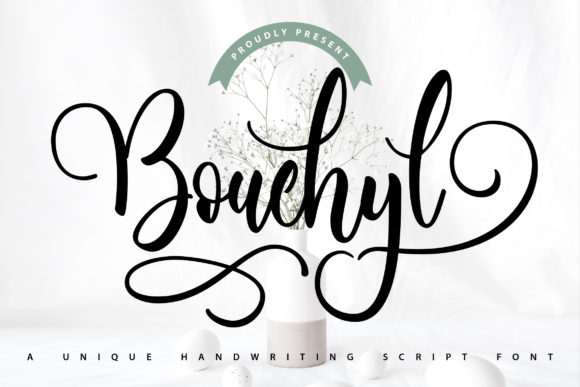
Bouchyl | Unique Handwriting Script Font
Have you ever been in the middle of a design project, and suddenly, you’re stuck on finding the perfect font? I recall a recent experience where I was working on a greeting card design, and my client specifically asked for a calligraphy-style font that exuded elegance and sophistication. After scouring through numerous font libraries, I stumbled upon **Bouchyl | Unique Handwriting Script Font**, and it instantly became the star of the show! ✨
A Beautiful Addition to Your Design Arsenal
Bouchyl is more than just a font – it’s a statement piece. Its calligraphy style makes it perfect for invitations, greeting cards, branding materials, business cards, quotes, posters, and more! The beautiful, flowing lines of this font will elevate your designs and leave a lasting impression on your audience.
So, what makes Bouchyl special? Here are some of the things I love about this font:
- ✨ Elegant and sophisticated calligraphy style
- 💫 Unique character set, perfect for adding a personal touch to your designs
- 🎨 Versatile and works well with a variety of design styles
Of course, no font is perfect, and Bouchyl has a few minor quirks:
- 🤔 Limited support for non-English languages
Bouchyl was created with the intention of capturing the essence of traditional calligraphy. The designer, inspired by the works of classic calligraphers, aimed to create a font that would bring a touch of elegance and sophistication to modern designs. With Bouchyl, you can add a hint of luxury and refinement to your projects.
Q: Is Bouchyl suitable for body text?
While Bouchyl is highly legible, it’s primarily designed for display text. For body text, you may want to choose a font with a more traditional design.